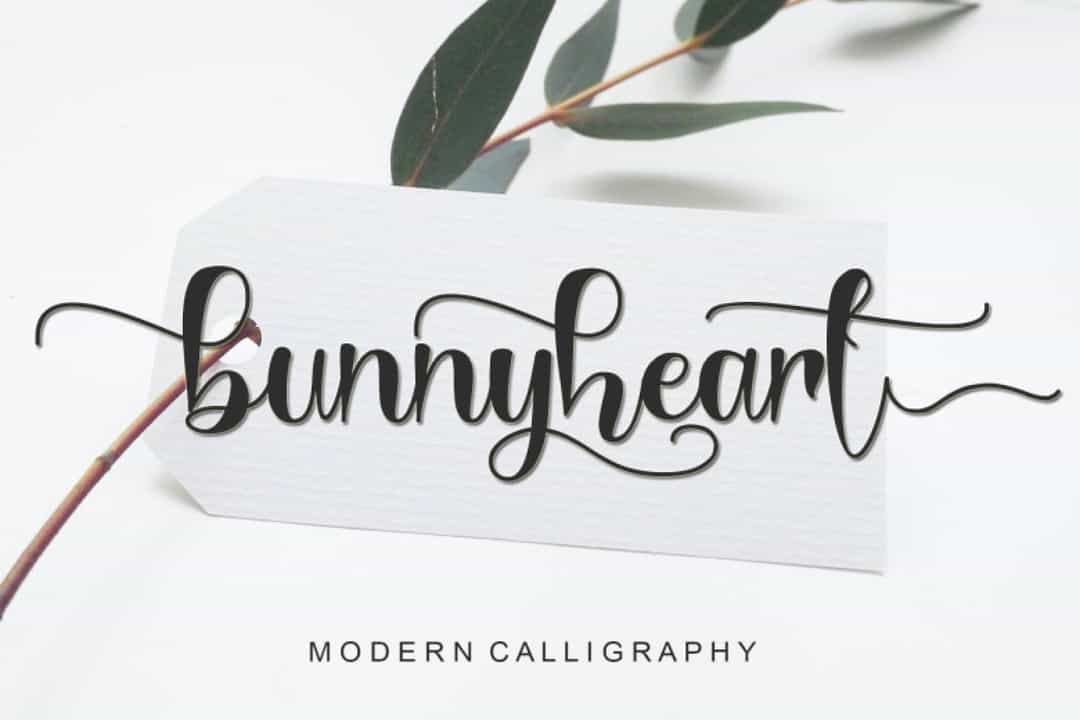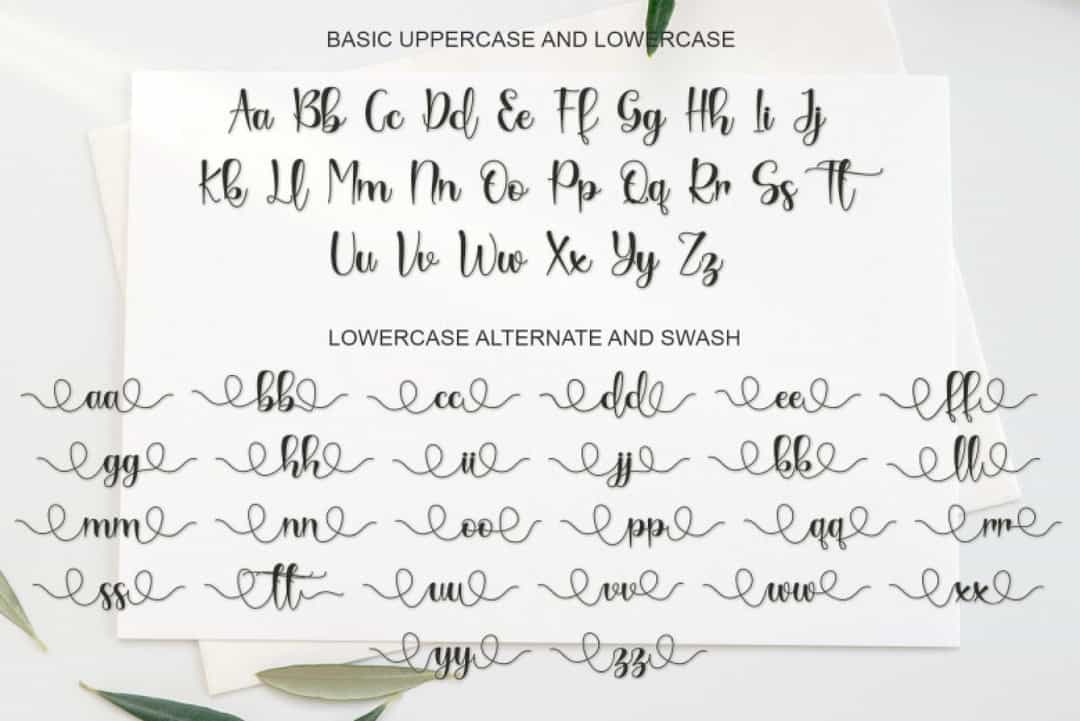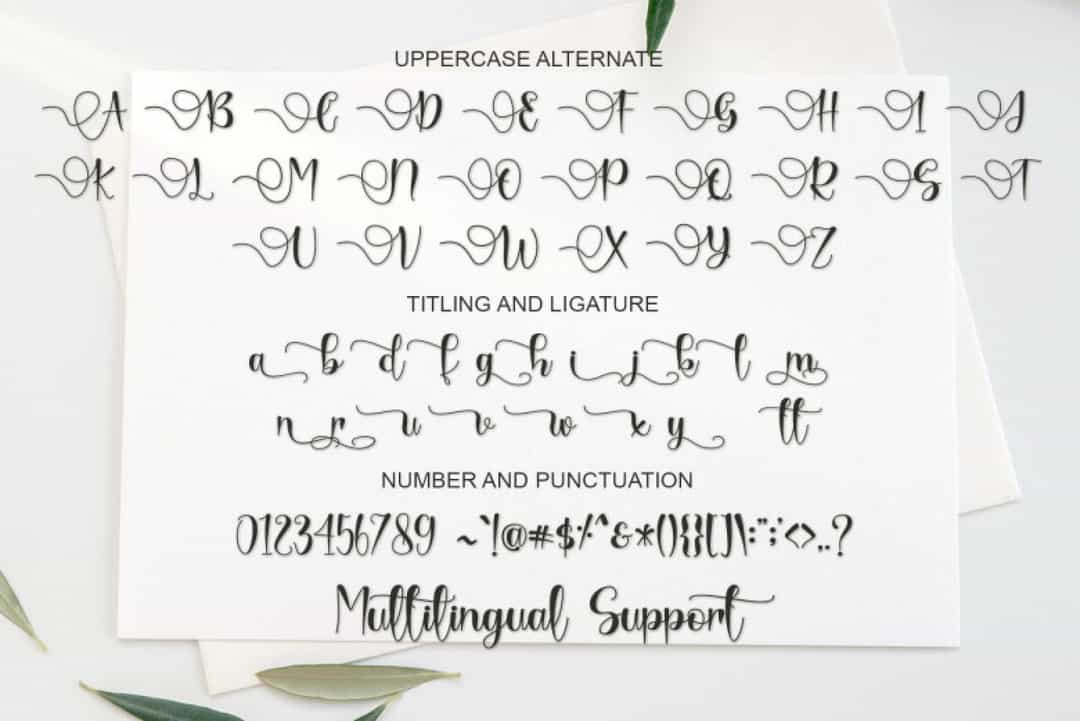
Bunnyheart by Letterafa Studio is an eye-catching calligraphy script font featuring flowing letters for an unique and charming aesthetic, along with various adorable characters that add cute character details.